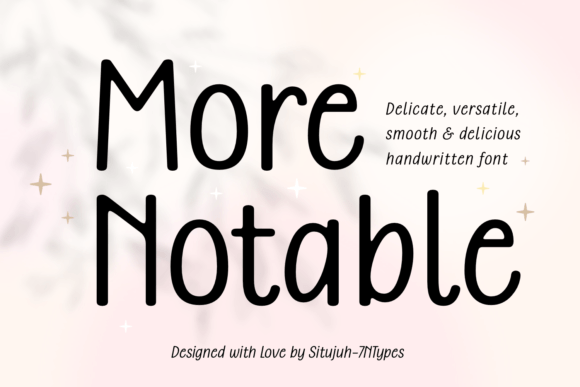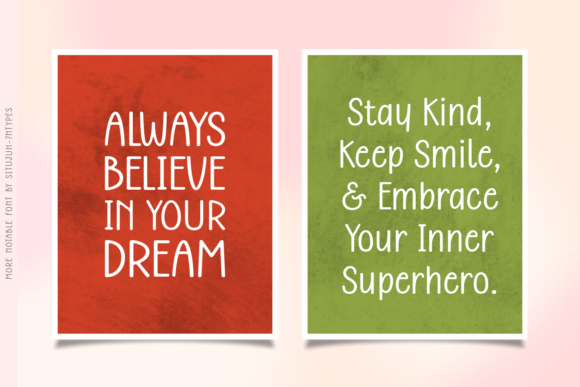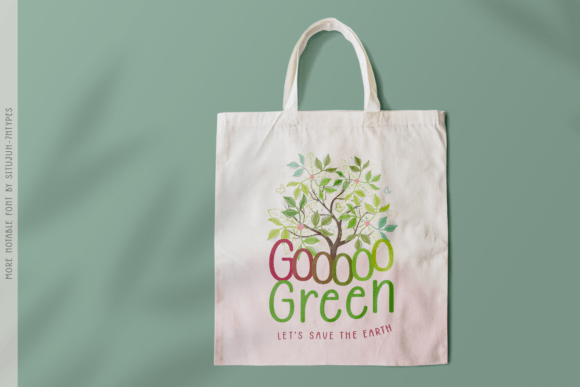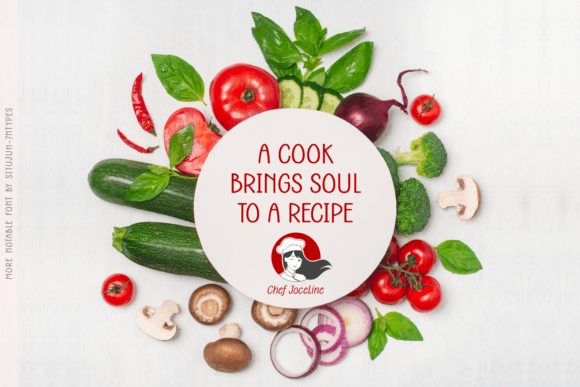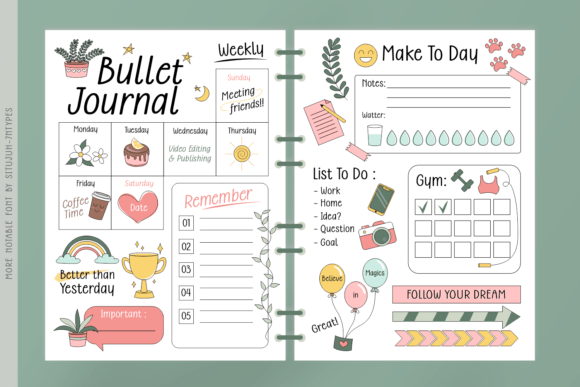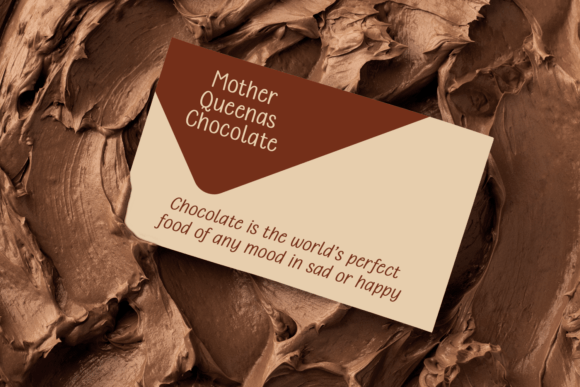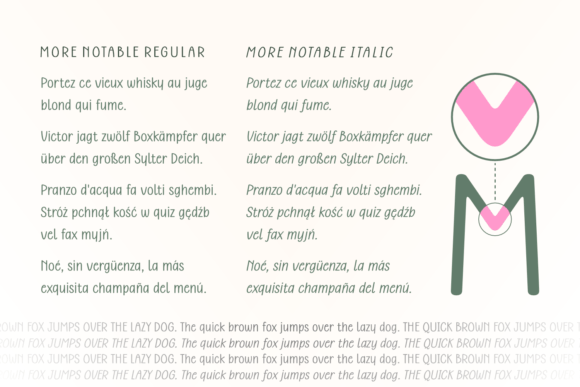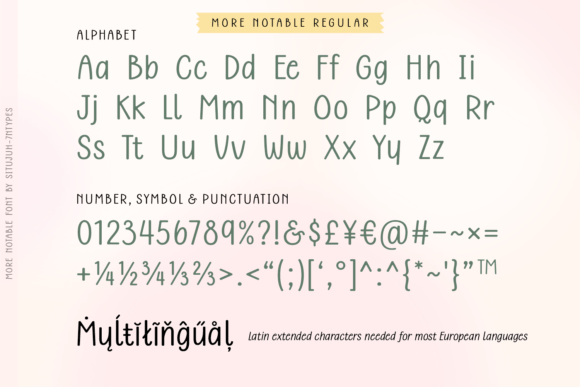
More Notable is a sleek and contemporary script font that embodies elegance and sophistication. Its thin and flowing lines create a sense of effortless grace and fluidity, making it perfect for designs that require a touch of refined charm. This font is sure to leave a lasting impression.
More Notable Font